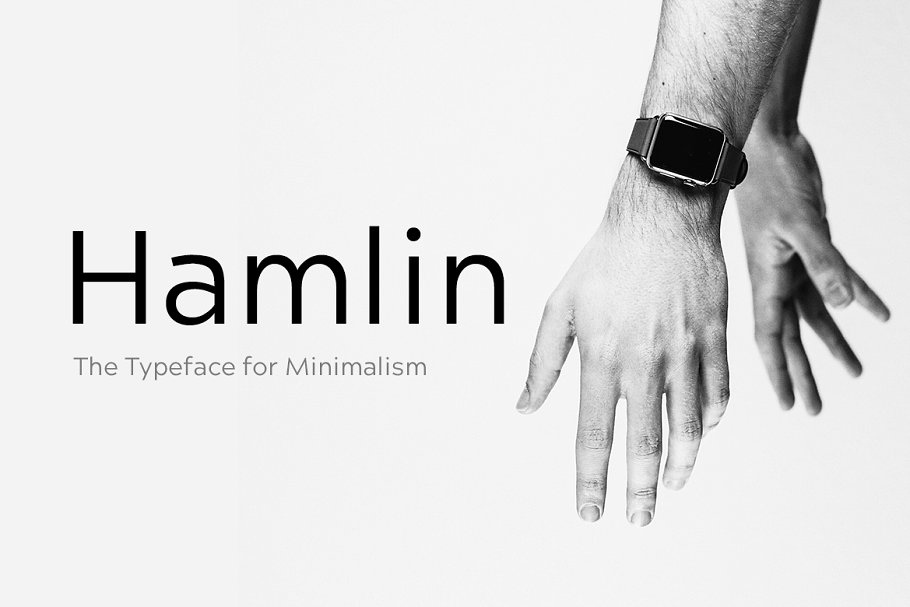
Hamlin Font
Hamlin Font is perfect for small-town business branding, community organization materials, local government communications, hometown festival promotions, family-owned restaurant signage, and grassroots campaign messaging. Its authentic character makes it ideal for rural enterprises, agricultural cooperatives, local newspapers, community banks, neighborhood services, and any project requiring genuine community spirit with hometown authenticity and trustworthy local appeal.
This font is exciting because it captures the warmth and reliability of small-town America while delivering modern functionality for contemporary community communications. The carefully crafted letterforms evoke feelings of neighborly trust, community pride, and the timeless values that build strong local relationships, creating powerful connections that resonate with audiences who appreciate authentic community spirit and genuine hometown character.
The Hamlin Font family typically includes Light, Regular, Medium, and Bold weights with community-inspired alternates, hometown ligatures, and local decorative elements that enhance its neighborly personality. This comprehensive collection enables designers to create trustworthy brand systems that maintain authentic community character while providing flexibility for various local applications requiring genuine connection and hometown market positioning.
Whether you're developing identity systems for local businesses, creating materials for community events, or designing promotional content for hometown initiatives, Hamlin Font Free Download delivers the authentic community spirit and hometown charm that connects with local audiences nationwide. Its trustworthy presence ensures reliable brand recognition across digital platforms and print materials, making it perfect for websites, mobile applications, and community campaigns that celebrate local pride, neighborhood values, and the enduring strength of authentic community connections with contemporary relevance and genuine hometown appeal.